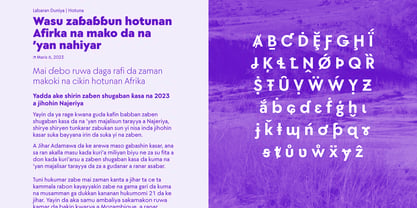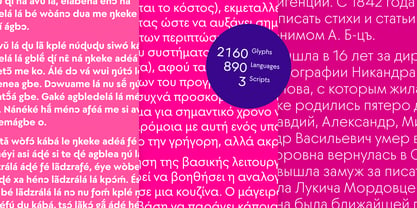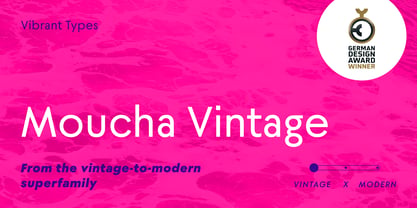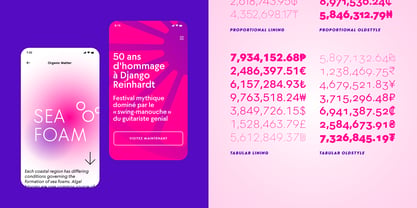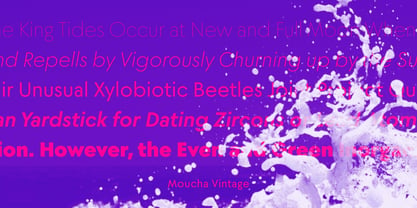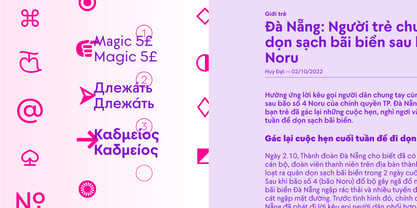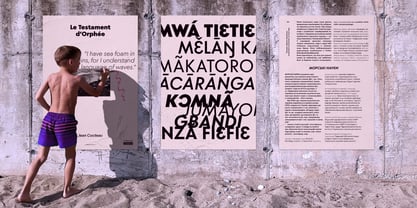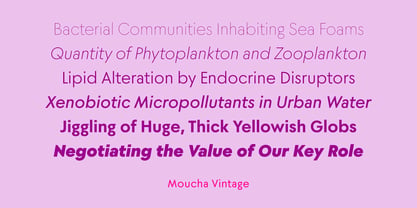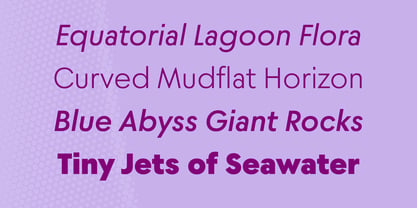
Moucha Vintage
The Moucha Vintage Font Family was designed by Philip Lammert and published by Vibrant Types. Moucha Vintage contains 16 styles and family package options. More about this family
Moucha Vintage is a geometric typeface family with a rhythmic typesetting. The narrow ‘n’ and Roman square capitals give it a classic appeal. It is part of the Moucha vintage-to-modern superfamily, which received the German Design Award 2024 for its multitude of variants. It supports 890 Latin, Cyrillic, and Greek languages.